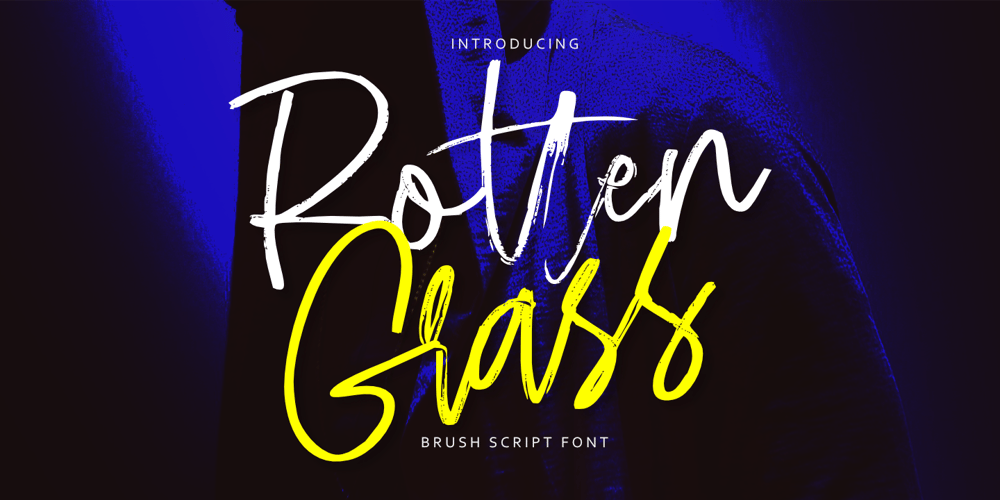
Rotten Grass
Rotten Grass font
Rotten Grass Font Family was designed by Aldy Sidik and published by Epiclinez. Rotten Grass contains 1 styles and family package options. Say hello to Rotten Grass – a brush script font. With its cool textures mimicking the look of rotten grass, this font brings a fresh and edgy vibe to your creations. Embrace its rebellious charm in everything from brand identities seeking an unconventional edge to event flyers needing a gritty vibe. Imagine using it in advertising campaigns to capture attention instantly or in movie titles to create an unforgettable first impression. Let Rotten Grass be your secret weapon in unleashing creativity and making a lasting impact through typography like never before!Rotten Grass features : Standard Latin Numbers, symbols, punctuations, and ligatures Multilingual Support. Simple Installations Works on PC & Mac Thank You